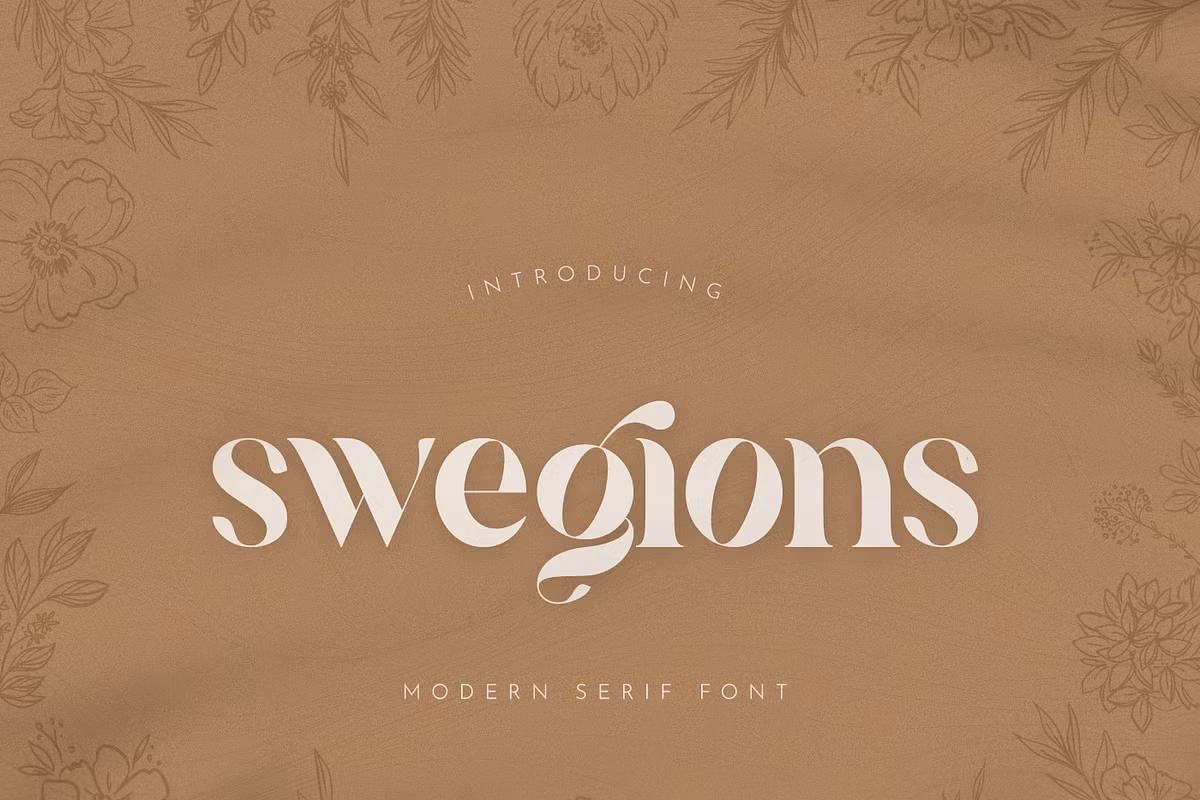
Swegions Serif Display Font Free Download is a bold and elegant serif typeface designed to make a statement. Perfect for high-end branding, editorial layouts, product packaging, and display typography, this font brings sophistication and visual impact to your designs.
With its sharp serifs, high contrast, and refined structure, Swegions Serif Display Font Free Download helps create eye-catching titles and sophisticated logos. Whether you’re designing a luxury brand, a stylish magazine cover, or an upscale event invitation, this font ensures your message is delivered with style and precision. Try it out in your next project to explore its elegance—then upgrade to a commercial license when you're ready to bring your designs to life.